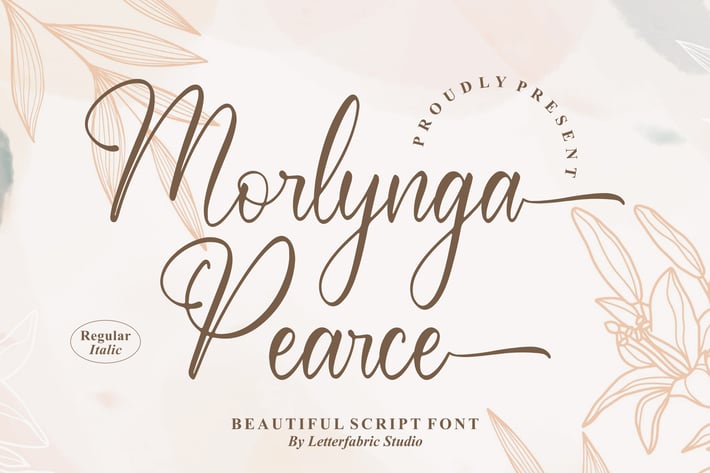
Morlynga Pearce Beautiful Script Font
Morlynga Pearce Beautiful Script Font is a refined handwritten script with elegant curves and a timeless modern style. Its graceful flow and balanced strokes bring a touch of sophistication, making it suitable for projects that require both beauty and professionalism.
+ Handwritten script style with smooth, elegant curves
+ Includes Regular & Italic styles
+ Branding & logo design
+ Wedding invitations & stationery
+ Fashion and lifestyle campaigns
+ Social media graphics & quotes
+ Posters & editorial layouts
Elevate your designs with Morlynga Pearce – where timeless beauty meets modern sophistication.